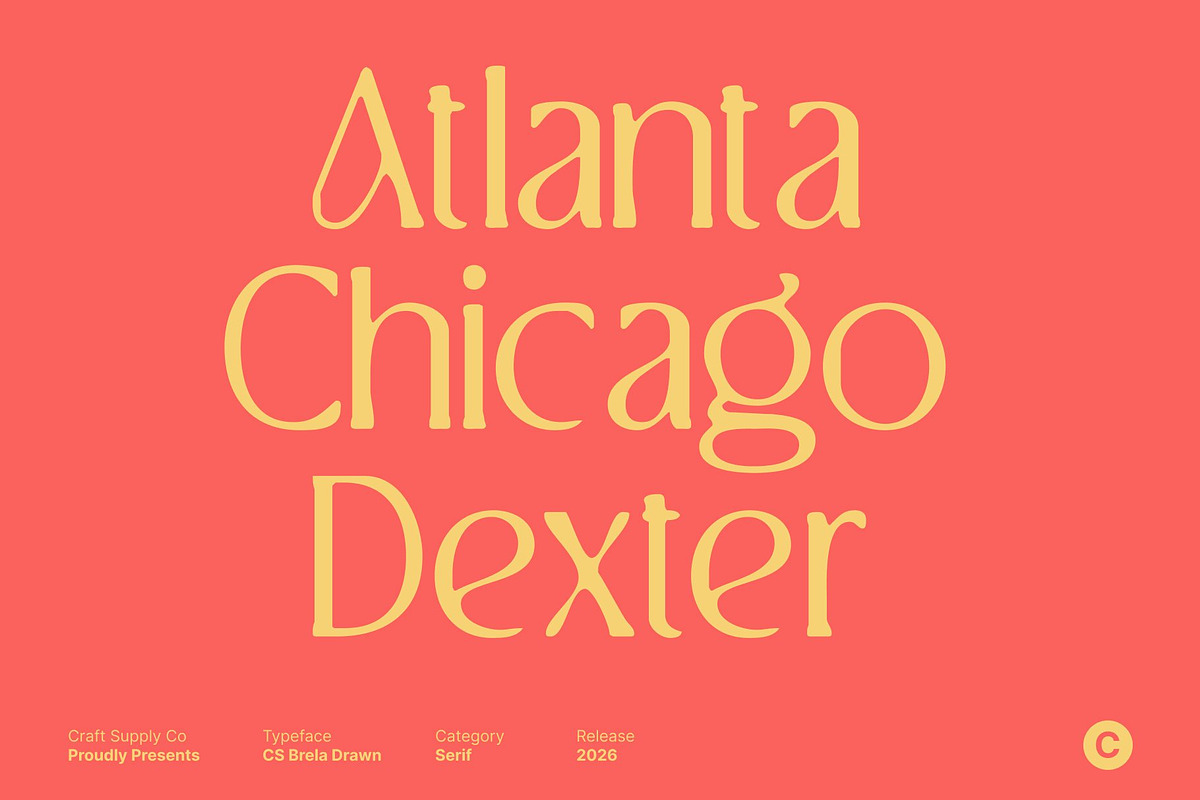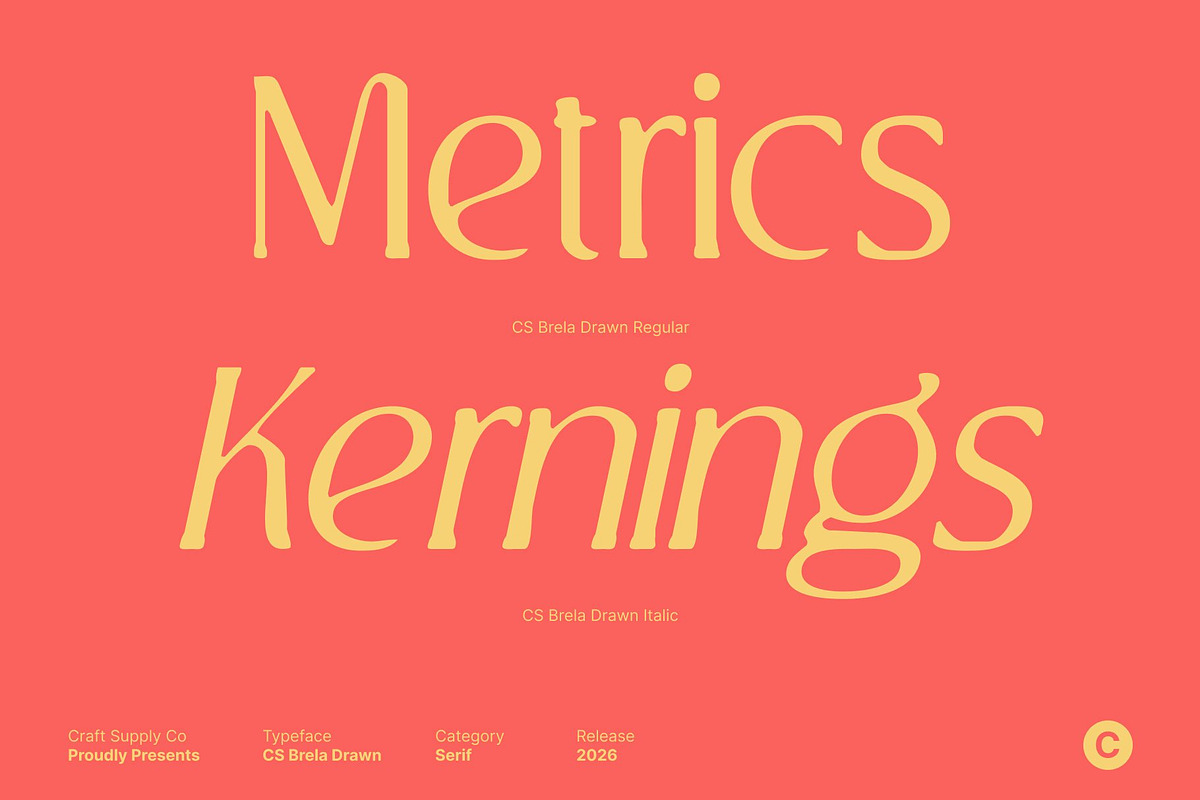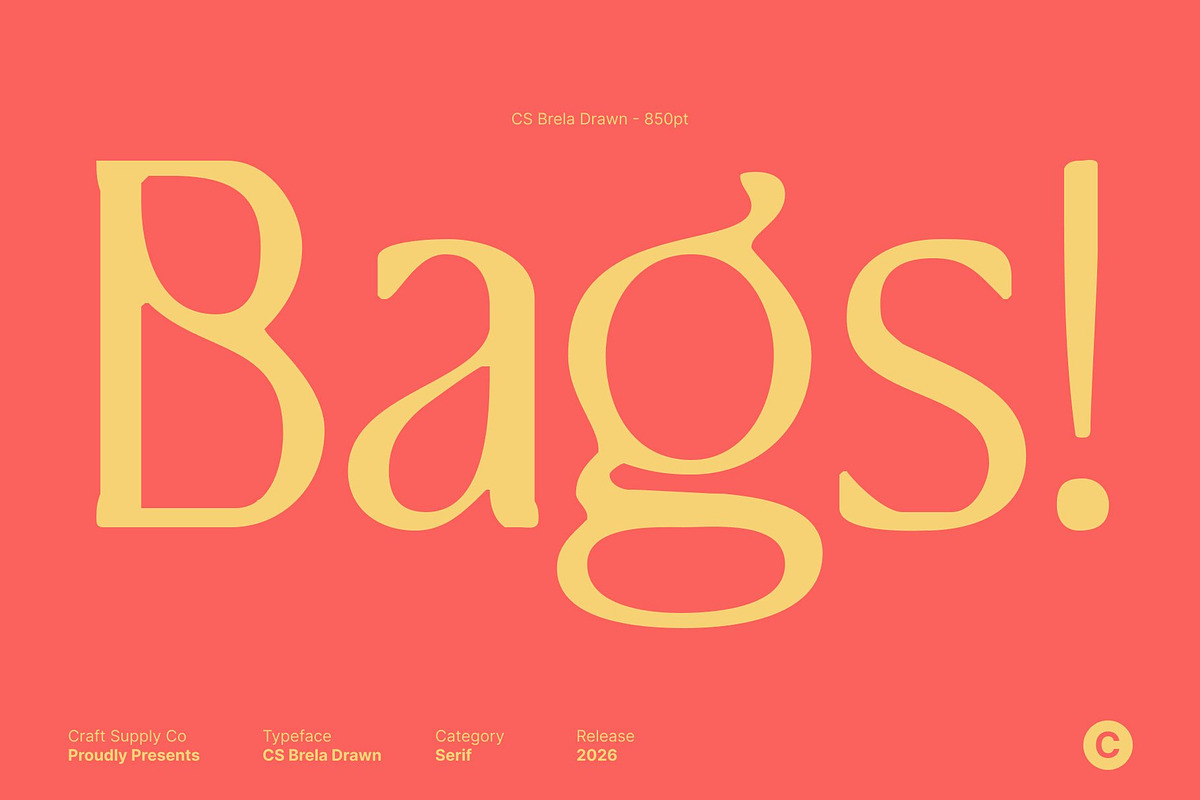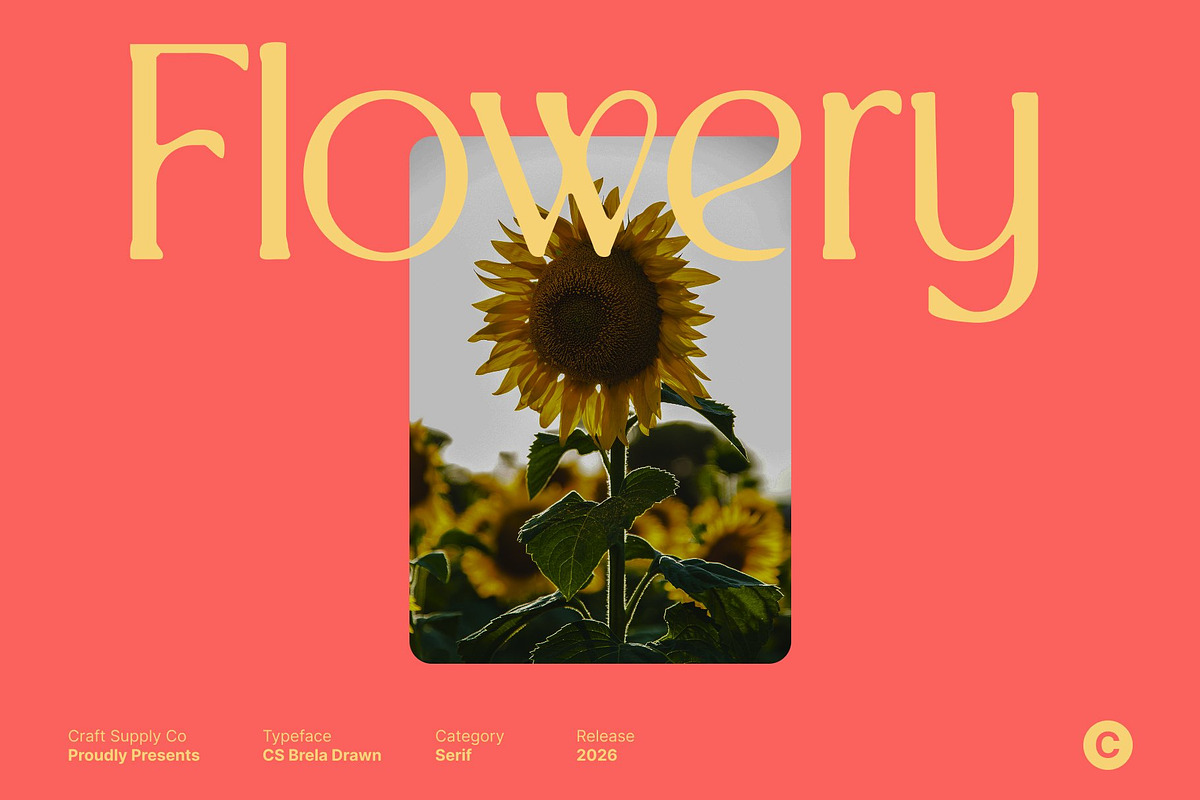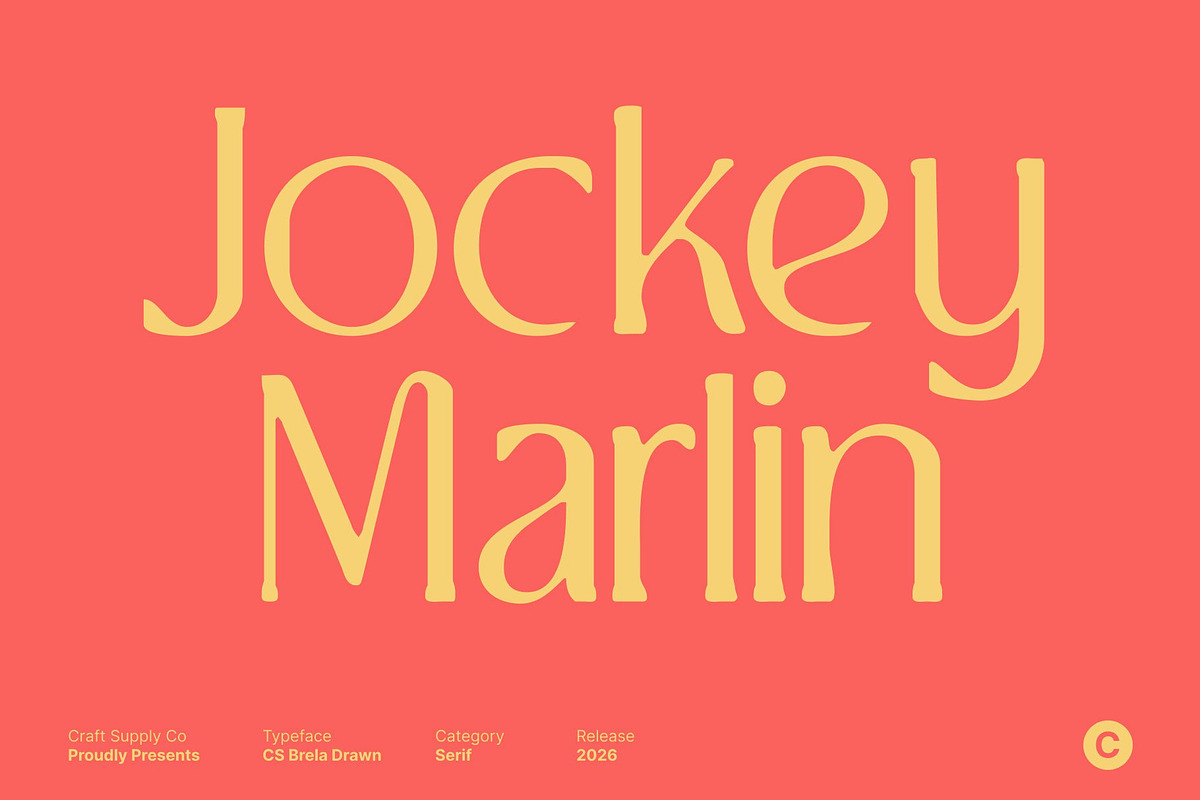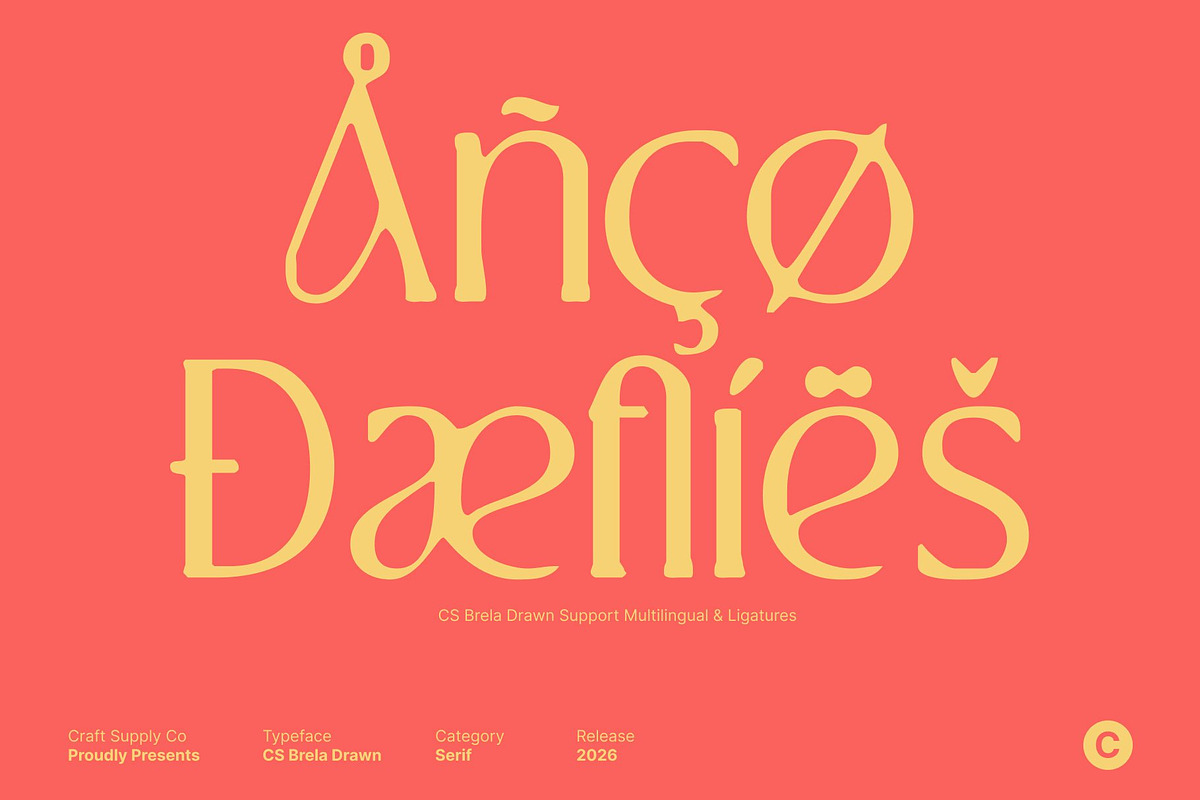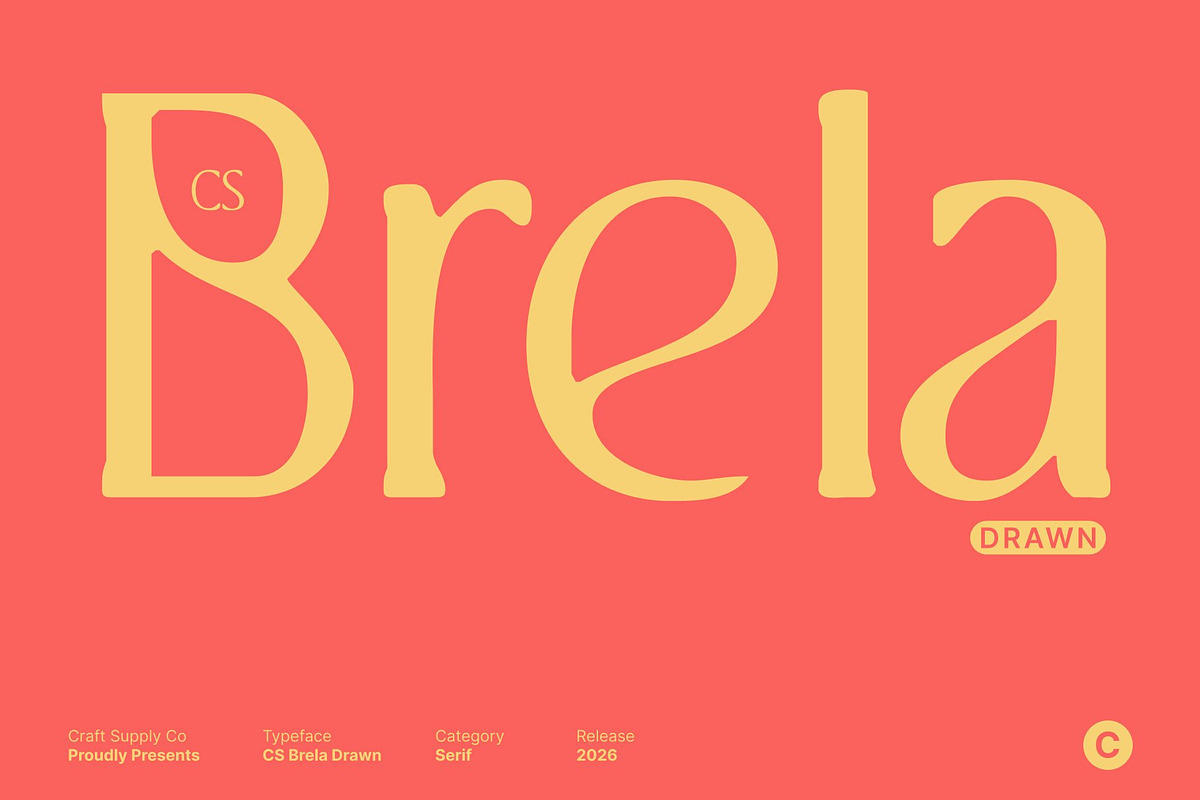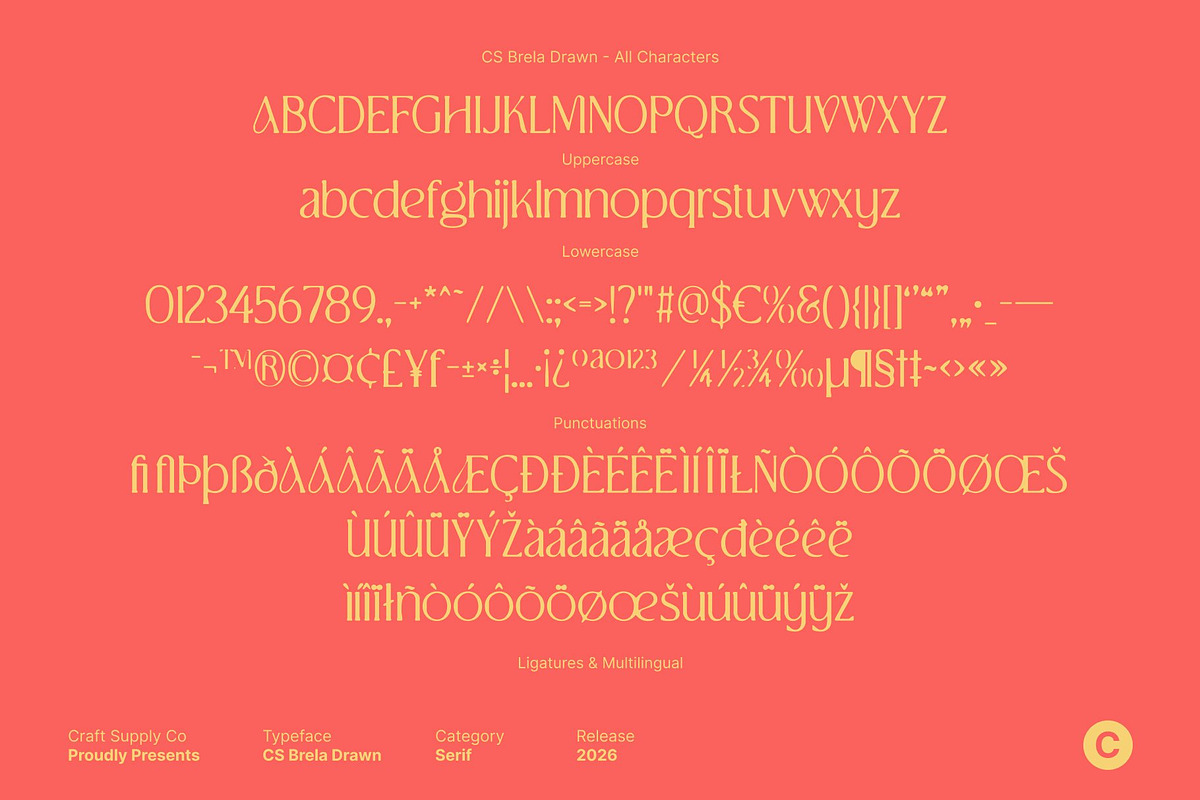
CS Brela Drawn
CS Brela Drawn – Elegant Serif with Playful Sophistication
Elegant Serif with Casual, Handcrafted Charm This is an elegant serif font designed with simple, well-balanced letterforms and a subtle drawn finish. Its clean structure ensures excellent readability, while the handcrafted texture softens the overall look, giving the font a relaxed and approachable personality. This blend of refinement and warmth creates a serif that feels stylish and elegant without becoming stiff or overly formal.
Playful Ligatures with Organic Expression A defining feature of this font is its playful ligatures. These thoughtfully designed connections add movement and personality, enhanced by the drawn effect that brings a natural, human touch. The ligatures create visual interest and rhythm while maintaining clarity, allowing compositions to feel expressive, lively, and refined at the same time.
Simple Forms with Soft, Refined Elegance The strength of this font lies in its simplicity. Clean letter shapes provide a timeless foundation, while elegant serif details and gentle drawn textures add depth and character. This balance between clarity and softness makes the font highly versatile and easy to combine with both minimal and decorative design elements.
Perfect for Fashion and Luxury Branding With its playful sophistication and handcrafted, this font is ideal for fashion branding, social media visuals, logos, posters, and editorial layouts. It delivers a modern, tasteful tone that communicates elegance, creativity, and confidence while the drawn finish adds uniqueness and artistic charm to every design.